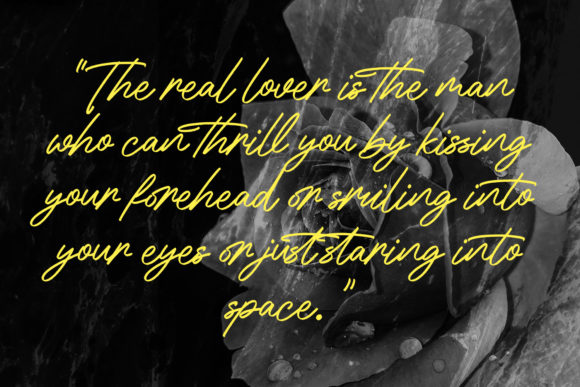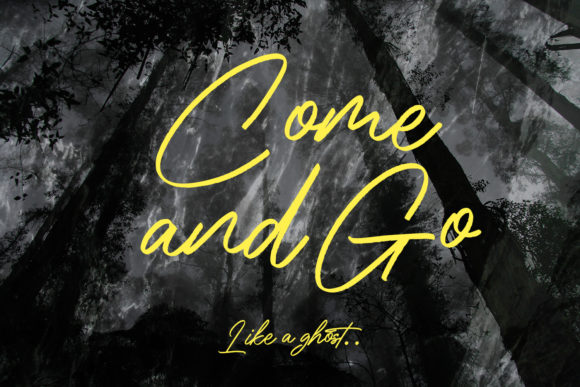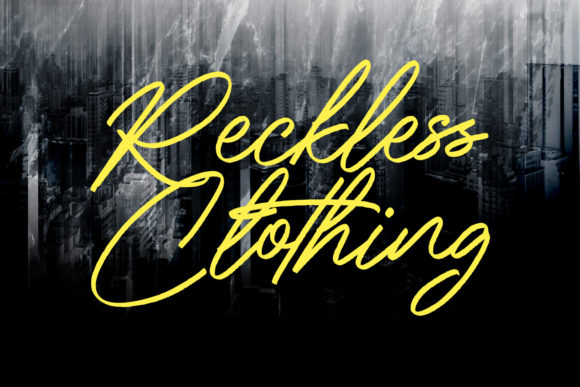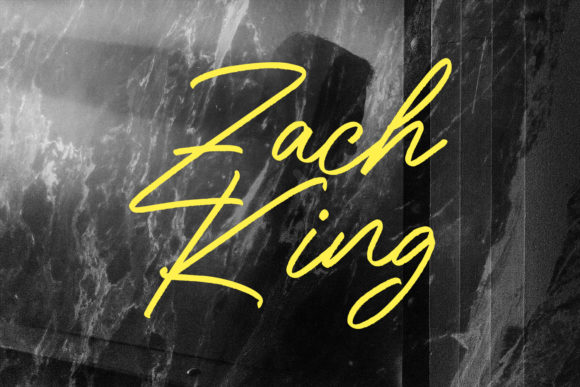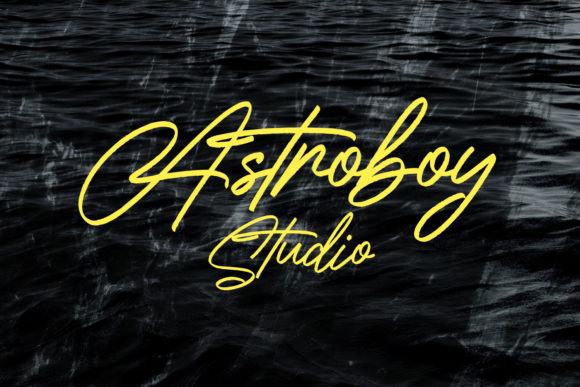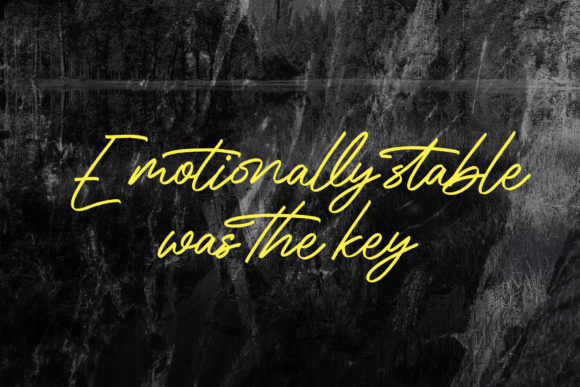
Adding a Touch of Elegance to Your Designs
Have you ever stared at a blank canvas, trying to spark that creative flame that sets your projects ablaze? You know, that moment when everything falls into place, and your imagination runs wild with possibilities? For designers, this feeling is the holy grail – the moment when our ideas come alive and transport our audience to a world of wonder.
That’s exactly what Cityskypes Font is designed to help you achieve. This fancy signature script font adds a touch of sophistication and elegance to any design, elevating it from mere functionality to a work of art. Whether you’re a seasoned pro or just starting out, Cityskypes Font is the perfect addition to your toolkit, helping you stand out in a crowded design landscape.
Cityskypes Font Key Features
- Unique Characteristics: Cityskypes Font features a unique blend of modern and vintage elements, with a sleek, urban feel that’s perfect for city-themed designs, logos, and branding materials.
- Customization Options: The font includes a range of customization options, including ligatures, swashes, and alternate characters, which can be used to add a personal touch to designs and projects.
Cityskypes Font Review
Overall, I found Cityskypes to be a decent addition to my design toolkit. It has a certain charm that can work well in certain contexts. ✨ The bold weights have a nice presence, making them suitable for headlines and titles. The italic styles also have a nice flair that can add some character to your designs.
One of the things I like about Cityskypes is its versatility. It comes in a wide range of weights and styles, making it easy to adapt to different design needs. Additionally, the font has a relatively modern feel, which can work well in contemporary designs. ✨ The font’s rounded edges also give it a friendly, approachable feel that can be appealing in certain contexts.
However, I did encounter some limitations with Cityskypes. ⚠️ For one, the font’s legibility can be a bit of an issue, especially at smaller font sizes. The letterforms can get a bit cluttered, making it difficult to read. Additionally, the font’s lack of bold-italic styles can be limiting in certain situations.
Pros:
- Bold weights have a nice presence
- Italics have a nice flair
- Wide range of weights and styles
- Relatively modern feel
Cons:
- Legibility can be an issue at smaller font sizes
- Lack of bold-italic styles
Tips for Getting the Most Out of Cityskypes Font
To get the most out of Cityskypes font, consider the following tips:
- Use Cityskypes font for titles and headings to add a touch of sophistication.
- Combine Cityskypes font with other fonts to create a unique and visually appealing design.
- Experiment with different font sizes and styles to achieve the desired effect.
Cityskypes font is ideal for:
- Designing business cards and marketing materials.
- Creating elegant and sophisticated titles and headings.
- Adding a touch of sophistication to digital designs.